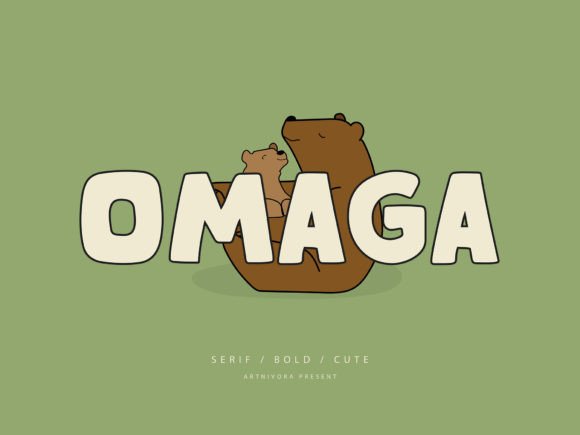
Prepare to embrace the captivating allure of Omaga, a resplendent display font that exudes elegance and sophistication. Its pristine letterforms, adorned with crisp lines and impeccable structure, paint a picture of effortless modernity. Allow Omaga to elevate your design creations, imbuing them with a sleek allure that commands attention.
Unleash the versatility of Omaga, a font that effortlessly complements a symphony of design endeavors. Its adaptability knows no bounds, making it an ideal choice for captivating headlines, eye-catching titles, and any text yearning for a bold statement. With Omaga, your words will dance across the page, captivating audiences with their poised grace and undeniable presence.
Indulge in the artistry of artnivora.std, the creative force behind Omaga's brilliance. Their passion for typography shines through in every curve and angle of this font, ensuring a masterpiece that will grace your designs with timeless beauty.
Omaga, the crown jewel of display fonts, awaits your discovery. Embrace its allure and let your creativity soar to new heights. With Omaga, every word becomes a brushstroke, painting a vibrant masterpiece that captivates and inspires.